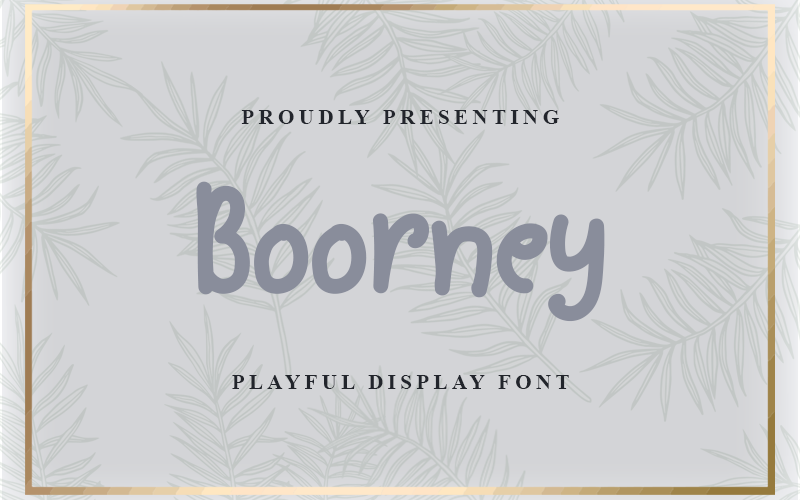
Boorney is a Playful Display Font. This font is perfect for all of your crafting projects, svg designs, branding, logos, stickers, cricut projects and more! This Font also has a lot of International Characters that would be best used in programs that support opentype features. You can also access these ligatures through your font book (Mac) or character map (windows). Note of the author: NOTE: This Demo is for PERSONAL USE ONLY! But any donation are very appreciated. PayPal Account for Donations: https://lnkd.in/fPg-VuA Link for Donations via PayPal: paypal.me/dennysutanto93 link to purchase full version and commercial license: - Creative Fabrica: https://www.creativefabrica.com/product/boorney/ref/235725/ Please visit our store for more great fonts: - https://www.creativefabrica.com/designer/densudesign/ref/235725/ and follow my Instagram for update: https://www.instagram.com/densudesign/ Thank You |